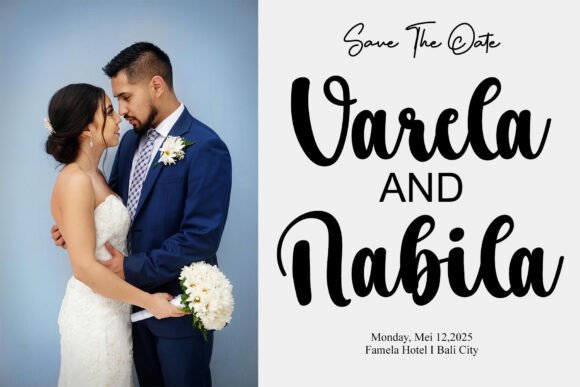
Masterland Font: Elevate Your Designs with Elegance and Charm
When it comes to creating visually stunning designs, the right font can make all the difference. Introducing Masterland, a stylish handwritten script font that exudes elegance and charm with its fluid, graceful strokes. Perfect for branding, invitations, and stationery, Masterland adds a personal and sophisticated touch to any design. In this article, we’ll explore the features and benefits of Masterland Font and how it can elevate your designs to the next level.
The Characteristics of Masterland Font
Masterland Font is a beautifully crafted handwritten script font that boasts smooth curves and a natural flow. Its fluid strokes create a sense of movement and fluidity, giving it a unique and charming personality. The font’s elegant and refined look makes it perfect for designs that require a touch of sophistication and luxury.
One of the standout features of Masterland Font is its versatility. It can be used for a wide range of design projects, from branding and advertising to invitations and stationery. Whether you’re looking to create a logo, business card, or wedding invitation, Masterland Font is the perfect choice.
The Benefits of Using Masterland Font
So, why choose Masterland Font for your design projects? Here are just a few benefits of using this stunning font:
- Elegance and Charm: Masterland Font exudes elegance and charm, making it perfect for designs that require a touch of sophistication and luxury.
- Versatility: Masterland Font can be used for a wide range of design projects, from branding and advertising to invitations and stationery.
- Personal Touch: The font’s handwritten script style adds a personal touch to any design, making it perfect for creating unique and memorable designs.
- Timeless Look: The smooth curves and natural flow of Masterland Font create a timeless, refined look that will never go out of style.
How to Use Masterland Font in Your Designs
Using Masterland Font in your designs is easy. Here are a few tips to get you started:
- Branding: Use Masterland Font as a logo font or for branding materials such as business cards and letterheads.
- Invitations: Masterland Font is perfect for wedding invitations, birthday invitations, and other special occasion invitations.
- Stationery: Use Masterland Font for stationery such as notebooks, journals, and greeting cards.
- Advertising: Masterland Font can be used for advertising materials such as billboards, posters, and flyers.
Tips for Pairing Masterland Font with Other Fonts
Pairing Masterland Font with other fonts can create a unique and visually stunning design. Here are a few tips for pairing Masterland Font with other fonts:
- Contrasting Fonts: Pair Masterland Font with a contrasting font, such as a bold sans-serif font, to create visual interest.
- Complementary Fonts: Pair Masterland Font with a complementary font, such as a serif font, to create a harmonious design.
- Script Fonts: Pair Masterland Font with another script font to create a elegant and sophisticated design.
The History of Masterland Font
Masterland Font was created with the goal of providing a unique and elegant font for designers. The font’s creator, [Name], drew inspiration from traditional handwritten script fonts and modernized them to create a font that is both elegant and versatile.
The development of Masterland Font involved a meticulous process of refinement and testing. The creator worked tirelessly to ensure that the font was of the highest quality and would meet the needs of designers.
In conclusion, Masterland Font is a stylish handwritten script font that exudes elegance and charm. Its fluid, graceful strokes make it perfect for branding, invitations, and stationery. With its versatility, personal touch, and timeless look, Masterland Font is the perfect choice for designers looking to elevate their designs to the next level.
- What is Masterland Font? Masterland Font is a stylish handwritten script font that exudes elegance and charm.
- What is Masterland Font used for? Masterland Font can be used for a wide range of design projects, including branding, invitations, stationery, and advertising.
- Is Masterland Font easy to read? Yes, Masterland Font is easy to read and can be used for both headings and body text.